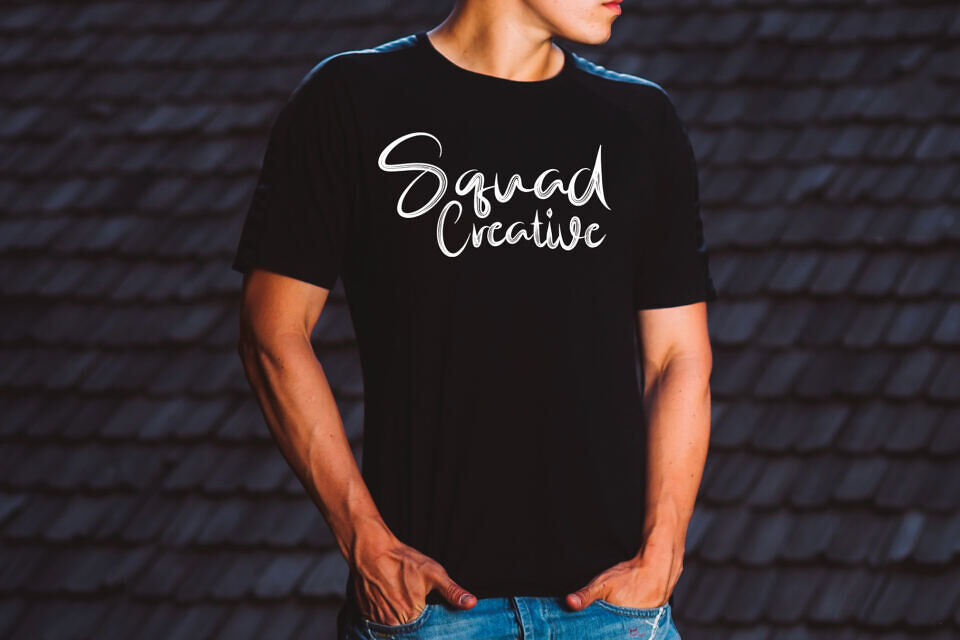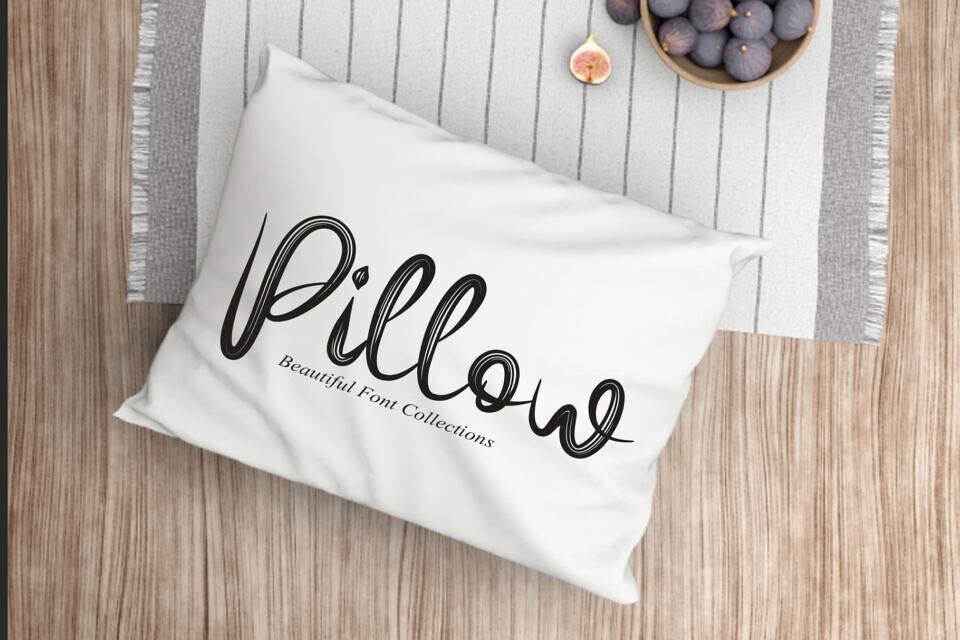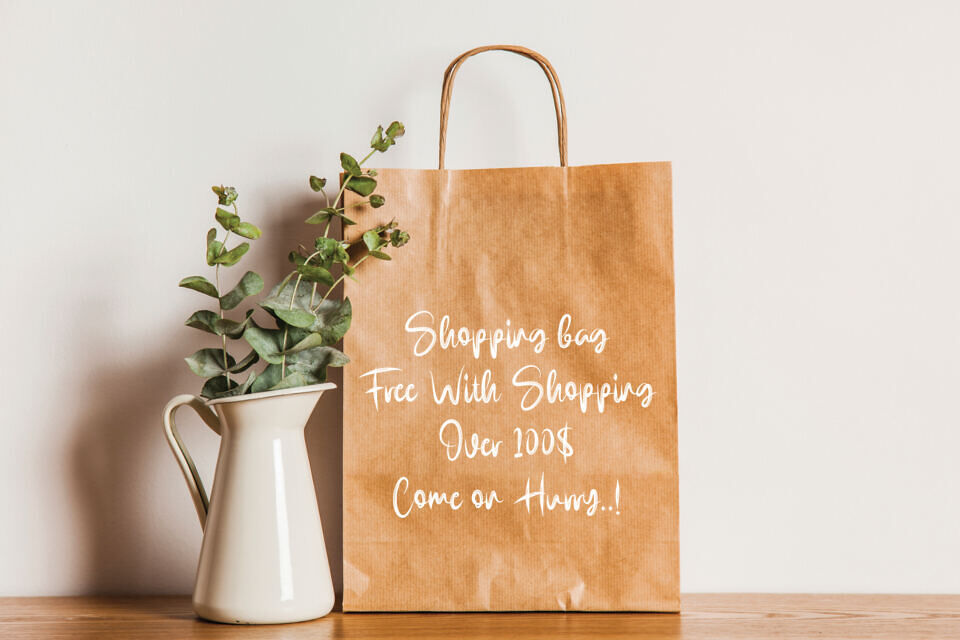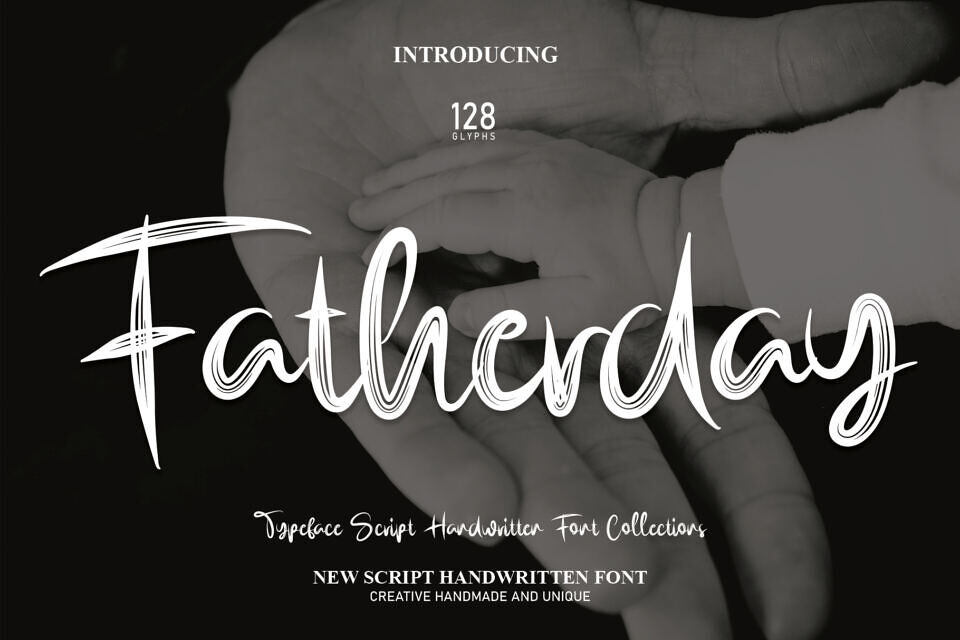
Fatherday Font
Fatherday is a stylish calligraphy script font with a smooth, handwritten feel and elegant flowing strokes. Designed to add a personal and creative touch, it works beautifully for logos, invitations, packaging, and social media graphics. Its expressive letterforms make designs stand out with a warm, artistic vibe, perfect for projects that need a modern yet handcrafted look.